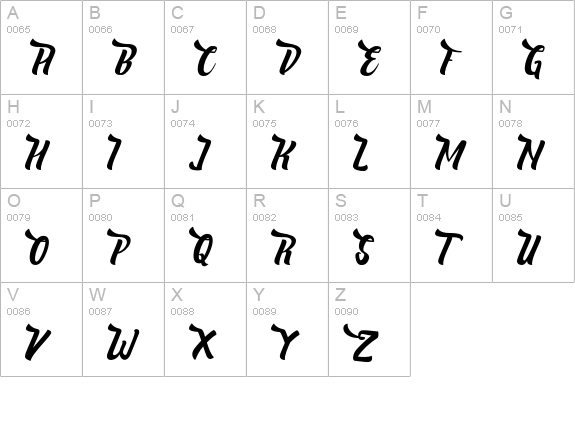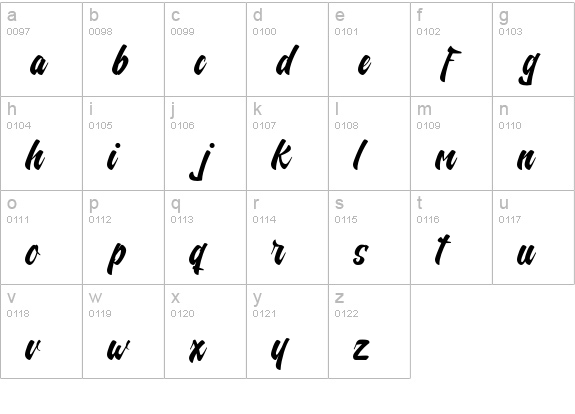
Nelda Font Details
Nelda font is a beautifully crafted typeface that exudes elegance and sophistication. Its sleek and modern design makes it perfect for a wide range of creative projects, from branding to editorial design. The clean lines and balanced proportions of Nelda font give it a timeless appeal that is sure to elevate any design it is used in. What sets Nelda font apart is that it is not only stylish and versatile but also free to download. Yes, you read that right - this stunning font is freely available for download at FontsMarket.com. So whether you're a designer looking to add a touch of sophistication to your work or a creative individual in need of a stylish font for your personal projects, Nelda font is the perfect choice. Download it now and start creating beautiful designs with ease.